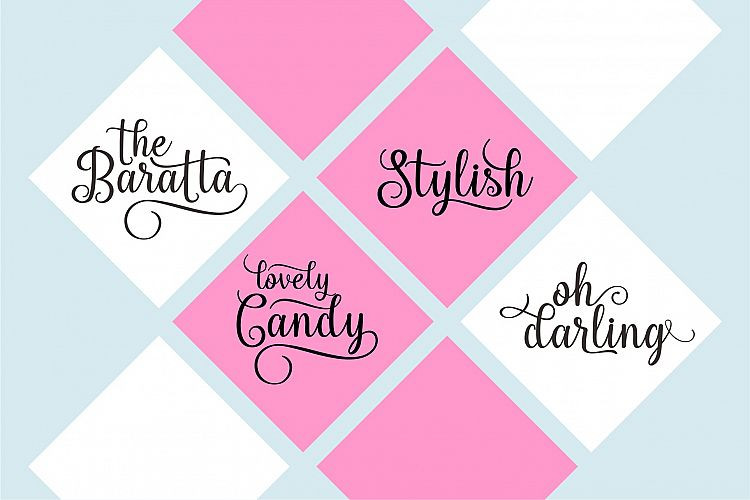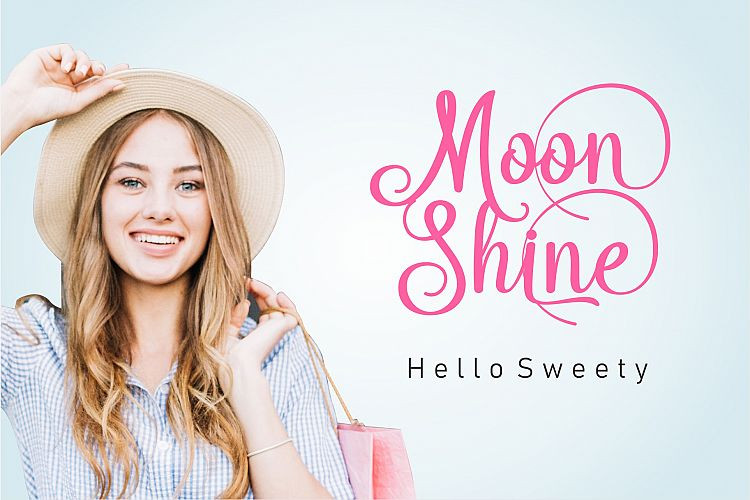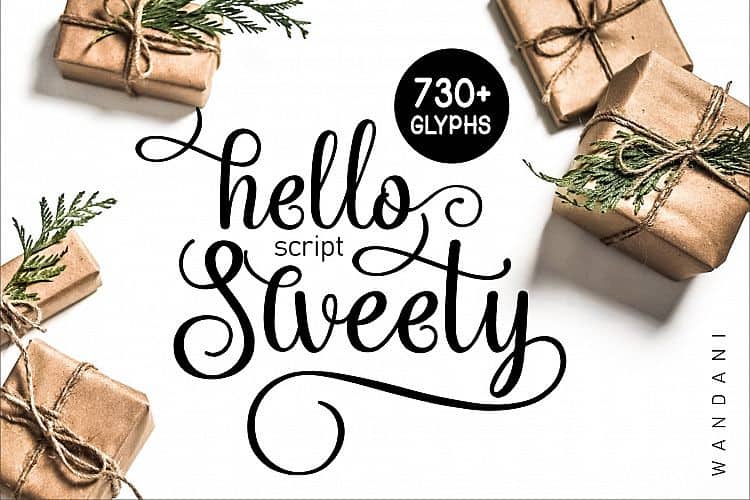
Hello Sweety Script Font is a sweet, bouncy handwritten script with soft rounded letters. Perfect for bakeries, kids’ products, invitations, greeting cards and cute branding.
Hello Sweety is a wedding script font for invitations, save-the-dates, place cards, welcome signs and other wedding stationery, and for romantic branding.